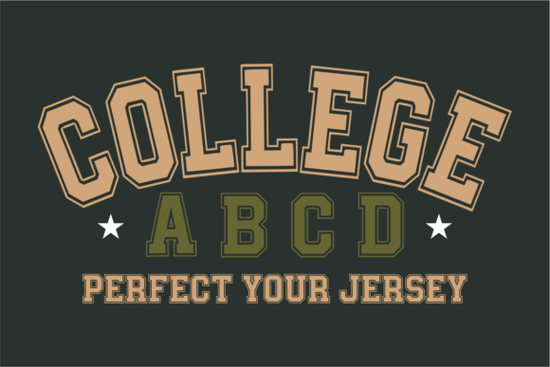
If you are looking for a bold, sporty typeface that feels both vintage and energetic, the College Abcd Font is worth a close look. This slab serif font draws inspiration from classic collegiate lettering think team jerseys, stadium banners, and old-school athletic programs. Its chunky, confident letterforms are designed to grab attention without being overly complicated, making it a solid choice for anyone working on sports-related projects or retro-themed designs.
What makes College Abcd different from other sports fonts?
A lot of sports fonts lean into a rough, distressed, or handwritten look. College Abcd takes a cleaner approach. It is a slab serif, which means the letters have thick, block-like serifs that give each character a sturdy, grounded feel. This makes it highly readable even at smaller sizes, which is not always the case with more decorative athletic fonts. The letterforms are uniform and well-spaced, so they work just as well on a t-shirt graphic as they do on a team logo or a poster.
While exploring bold font options for your next project, you might also want to check out other slab serif typefaces with a strong presence that can handle both large headlines and smaller text blocks without losing impact. College Abcd occupies a nice middle ground it has personality but stays legible.
Can I use this font with my Cricut or Silhouette?
Yes, absolutely. College Abcd is designed to work with popular cutting machines like Cricut and Silhouette, as well as design apps like Canva, Procreate, and Affinity Designer. Because the letters are bold and have clean outlines, they cut cleanly in vinyl, iron-on materials, and cardstock. You will not have to deal with thin, fragile sections that easily tear during weeding.
If you are doing sublimation printing, the font also holds up well because the thick strokes keep the design looking solid after transfer. This is especially useful for sports apparel like basketball jerseys or baseball caps, where you want the lettering to remain crisp even after multiple washes.
What kind of projects work best with this typeface?
Because College Abcd has that classic collegiate look, it fits naturally into certain categories:
- Sports merchandise – jerseys, practice shirts, team hoodies, and spirit wear
- Game-day posters – league brackets, championship banners, event flyers
- DIY crafts – custom tumblers, welcome signs, holiday gifts with a sporty twist
- Motivational graphics – quote posters, social media posts, locker room decor
- Youth leagues – uniform numbers, team names, coach gifts
The font also works surprisingly well for retro branding outside of sports. If you are designing a logo for a diner, a barbershop, or a vintage-inspired clothing line, the slab serif structure gives it a nostalgic, durable feel. The key is pairing it with simple layouts and letting the letters do the heavy lifting.
Is this font practical for print-on-demand and small business owners?
If you run a print-on-demand store or a small apparel brand, font choice directly affects how your products look on a mockup and in real life. College Abcd is a strong candidate because it works at multiple sizes. You can scale it up for a bold chest print on a t-shirt or use it smaller for a sleeve logo or back neck label, and it stays readable either way.
For team logos and sports branding, the font gives you that immediate athletic vibe without needing a lot of extra design work. Just set your text, pick team colors, and you have a solid foundation for a crest, a wordmark, or a badge. This saves time, especially when you are producing multiple designs for different teams or seasons.
Another advantage is compatibility. Whether you are working in Canva for quick mockups or Adobe Illustrator for detailed vector work, the font installs easily and behaves predictably. No unexpected spacing issues or missing characters.
How does it compare to other slab serif options?
There are plenty of slab serif fonts out there, but most fall into either a modern, geometric camp or a more decorative, distressed camp. College Abcd sits in the middle with a classic, collegiate style that feels familiar without being boring. It does not rely on fake wear or grunge effects to look authentic. Instead, it uses proportion and weight to deliver impact.
If you are used to working with fonts that require a lot of tracking adjustment or manual kerning, you will appreciate that College Abcd comes well-spaced out of the box. The letters naturally sit together in a way that looks intentional, which is helpful when you are producing a lot of content quickly.
Practical checklist before you use College Abcd in your next project
- Test it at small sizes – while it is bold, make sure the text is still readable at the scale you need (e.g., hat embroidery or small tags)
- Pair it with a simple sans serif – for secondary text, choose a clean, neutral font so the slab serif remains the focal point